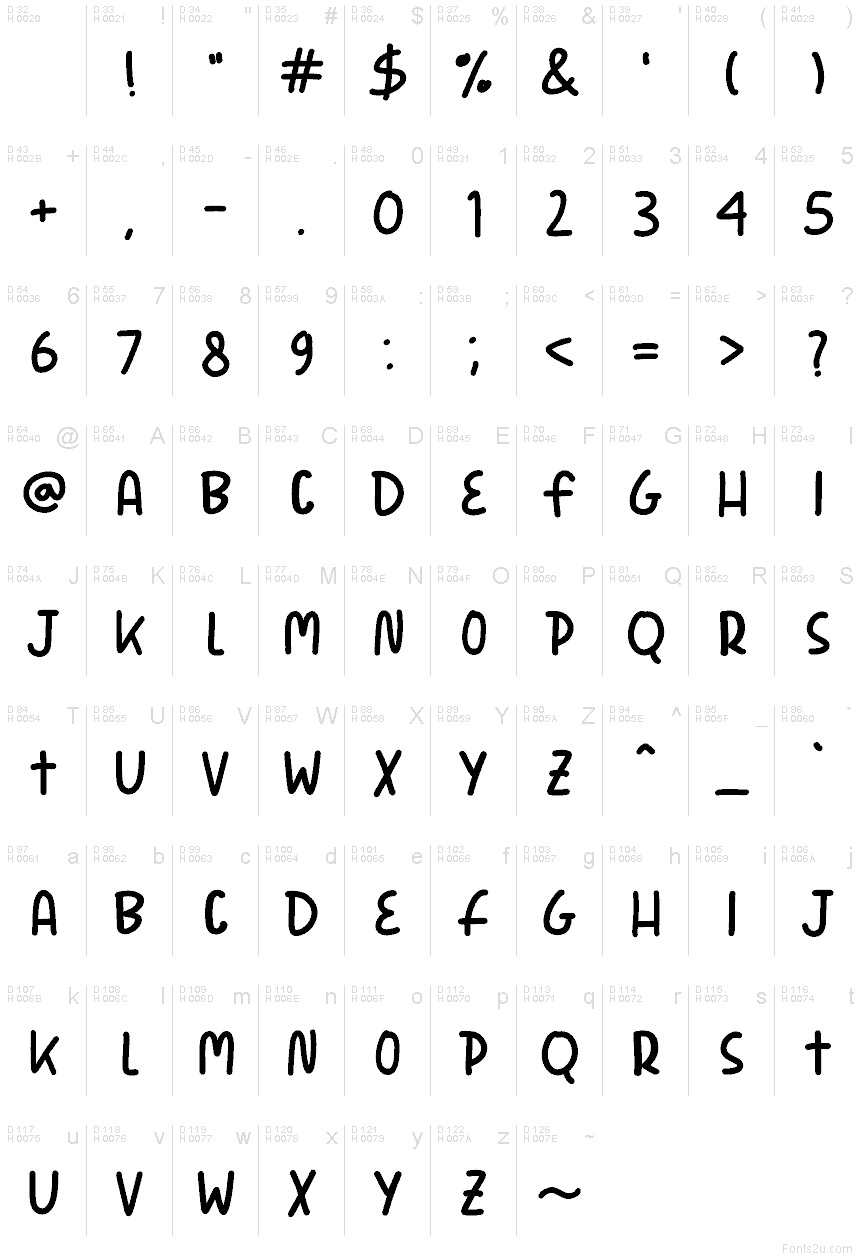
Happy Nation
Happy Nation font by Origin Type is a smooth handwritten font with a friendly and casual mood. The modern feel of this typeface is apparent in its one-of-a-kind letters and flowing forms, making it the perfect choice for anyone who wants to send a unique message across.